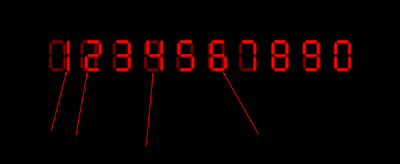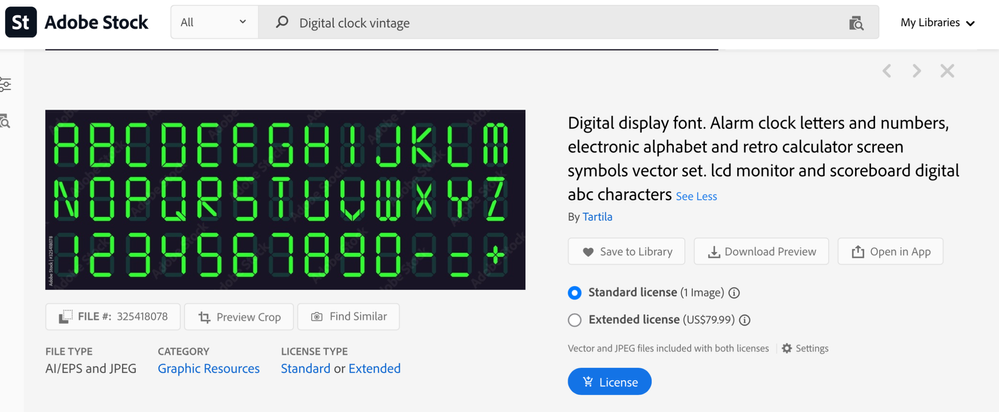
Digital font with lowered 0 numeral as background
I'm scouting the internet with no success. I'm looking for digital font (like the example I have uploaded).
The background has a 0 with a lowered opacity. And also as seen a number which is displayed. Any available fonts I can get in this style?
I have seen some websites which they give you this font, but you cannot type it, its just numbers SVG or PNGs images you can mix and match numbers, But Id like the font itself.
The background has a 0 with a lowered opacity.
Whether you find the typeface or create it yourself, it is not a zero with a lower opacity. I just checked my digital clocks and none of them do this anymore, but I remember when all of them did. The faded character is actually an eight, not a zero.
In the early days of digital clocks, the lights needed for all of the digits were slightly visible in the background, then were lit when it was their turn. Note that in your screenshot, the zero has a faded line across it that is necessary for the 2, 3, 4, 5, 6, and 8 to display.
In your second image, the one would not be centered in the zero (or eight), as a light does not exist in the center. It would be using the light on either the left or right side of the digit.
Be sure to include that horizontal light (line) if you create this yourself!
I found this on Adobe Stock. It's vector and needs to be opened in a vector application such as Illustrator.
The background has a 0 with a lowered opacity.
Whether you find the typeface or create it yourself, it is not a zero with a lower opacity. I just checked my digital clocks and none of them do this anymore, but I remember when all of them did. The faded character is actually an eight, not a zero.
In the early days of digital clocks, the lights needed for all of the digits were slightly visible in the background, then were lit when it was their turn. Note that in your screenshot, the zero has a faded line across it that is necessary for the 2, 3, 4, 5, 6, and 8 to display.
In your second image, the one would not be centered in the zero (or eight), as a light does not exist in the center. It would be using the light on either the left or right side of the digit.
Be sure to include that horizontal light (line) if you create this yourself!
I found this on Adobe Stock. It's vector and needs to be opened in a vector application such as Illustrator.
I do not know what search term you have used, but try searching for "Seven Segment Font".
Hello, and thank you for your reply. I donwloaded this font, but when I type out the numbers, 1, 2, 4, & 6, dont match up with the 0 digit in the background.
I would make two text layers with the same font, one with all zeros, and one with the "displayed" digits on the layer above. Make the "zeros" layer first, then duplicate it, and edit the digits to the "displayed". Link the two layers, and reduce the opacity of the "zeros" layer.